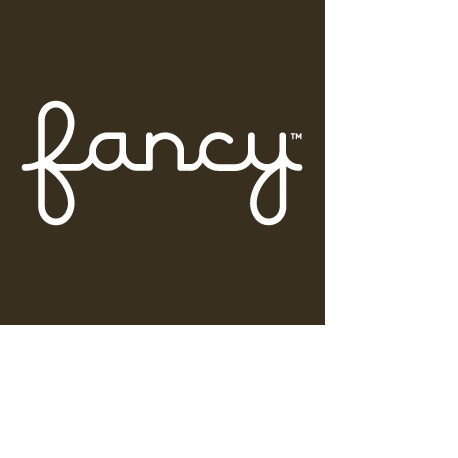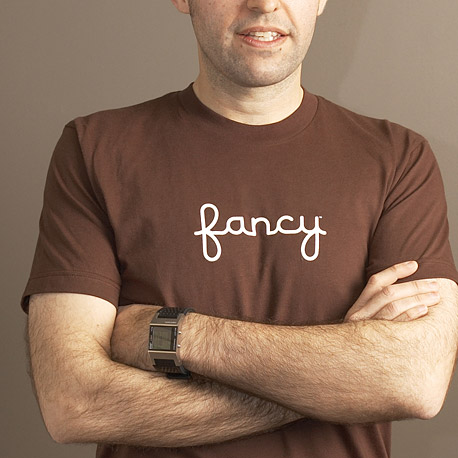
Hi, can anyone help me identify what font is used in these images?
The sample is a bit on the small side, but it looks like Montessori to me.Here's my query - I'm after the italic part of this logo...
Hi, can anyone help me identify what font is used in these images?
I've tried to find out what this font is. I've gone through all the usual websites and still no luck.
Gotta re-draw the logo ASAP! Typical.
Bottom text is obviously verdana but I can't believe anyone would draw the top font.
I think the 'webmaster' text is Eurostile Extended Two (available from Linotype-Hell)
I have both Eurostile and Microgramma installed on my machine and -- although I am away from the Mac at present -- I would bet cold, hard cash that the text in question is Microgramma, as I advised upthread.
Edit to add: Been home and checked this now. Definitely Microgramma.
Still, if I had bet you cold, hard cash then you'd have to track me down and get it from me, not easy.😉
I've tried to find out what this font is. I've gone through all the usual websites and still no luck.
Gotta re-draw the logo ASAP! Typical.
Bottom text is obviously verdana but I can't believe anyone would draw the top font.
Hmm... it looks a bit like the Cyclo family, although there are some key differences (most noticeably on the 'r', and the fact that Cyclo has rounded ends while your sample does not).ok here we go...
any ideas?
Looks like EF Digital Sans to me, 7scout7.
a random request:
has anyone seen flightplan? That awful film with jodie foster? I was watching it the other day and i liked the font from the opening credits. I think it's the same font as used on the movie poster:
for the white letters (italic) above FLIGHTPLAN